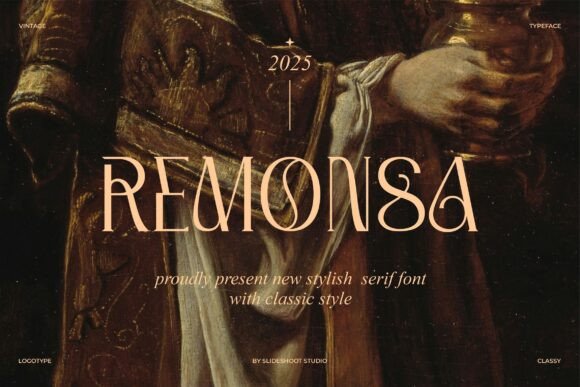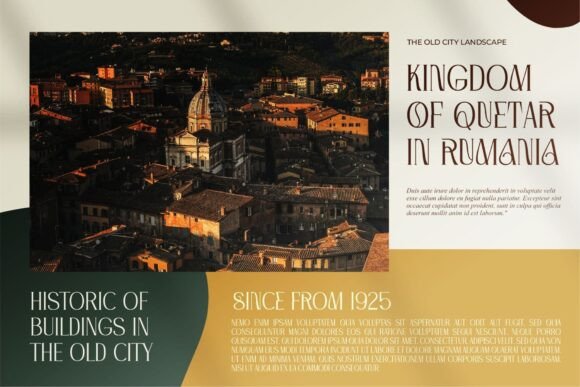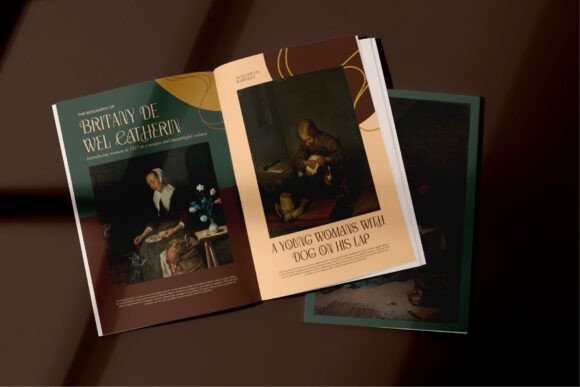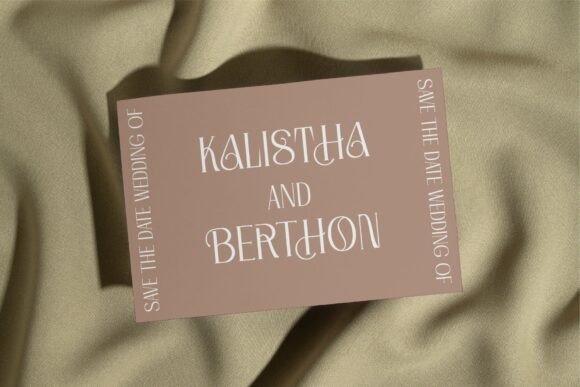
Remonsa Font
About the Remonsa Font
From logos to headlines, the Remonsa Font is the perfect choice for making a lasting impression. Introducing Remonsa is classic serif font. It is perfect to be combined with invitation card designs, company logos, movie titles, movie names, business cards, book titles, brand names and various other designs.
Remonsa’s classic serif design excels in applications requiring a touch of sophistication and timelessness, such as logos, headlines, and short-form text on packaging or posters. Its elegance works well for branding projects aiming for a premium or heritage feel. However, its detailed serifs make it less suitable for body text or UI elements where readability at smaller sizes is crucial. Avoid using it for lengthy paragraphs or situations demanding high screen resolution.
Its strong, yet refined personality pairs well with clean sans-serif fonts like Montserrat for a balanced contrast, or with a playful script font like Great Vibes for a more whimsical feel. A geometric sans-serif like Bebas Neue could also create a striking modern juxtaposition depending on the project’s needs.
Remonsa projects a feeling of confident elegance, making it ideal for brands and projects communicating luxury, tradition, or heritage. Avoid pairing it with overly informal or quirky fonts that would clash with its inherent refinement.
Remonsa Font Usage Examples
Remonsa Font Example